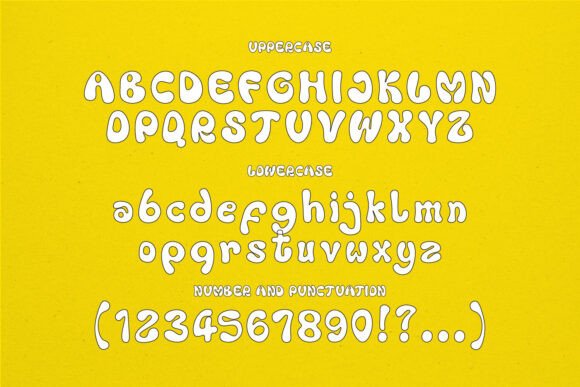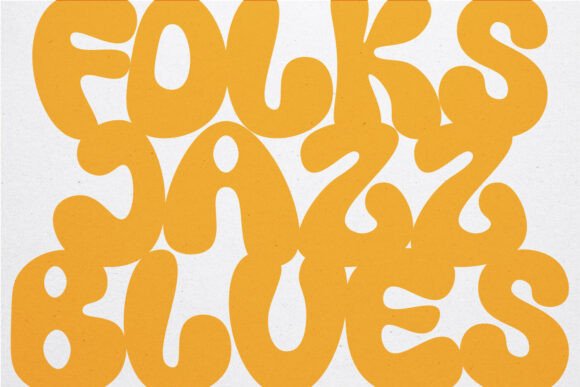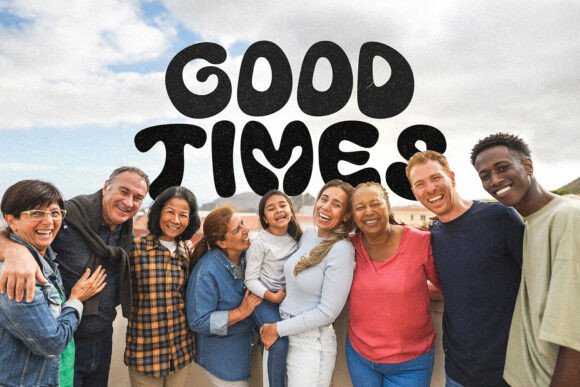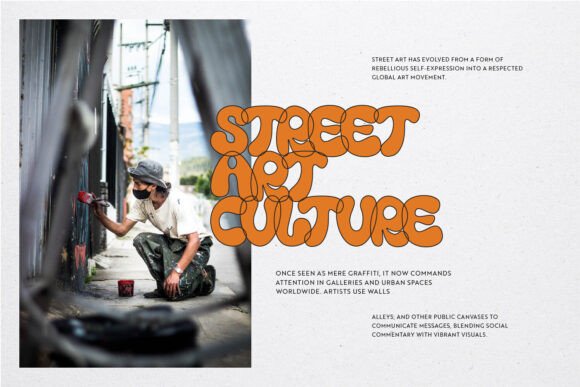
The Ultimate Font for Playful Designs: Bubbles Groove
I’ll never forget the time I was working on a fun project for a client who wanted a retro-inspired design. I had all the graphics and colors sorted, but I was stuck on finding the perfect font. That’s when I stumbled upon Bubbles Groove, a bold, rounded font that instantly brought my design to life! In this article, I’ll share my experience with Bubbles Groove, its features, and how to make the most of it in your designs.
An Honest Review of Bubbles Groove
- ✨ Bubbly Character: Bubbles Groove has a unique, playful vibe that’s perfect for designs that need a burst of energy and fun.
- ✅ Smooth, Curvy Shapes: The font’s smooth, curvy shapes make it easy to read and add a touch of personality to your designs.
- 🎉 Retro and Street Art-Inspired: Bubbles Groove is ideal for retro, Y2K, or street art-inspired designs, giving you a wide range of creative possibilities.
While Bubbles Groove is an amazing font, there are a few things to keep in mind:
- 🤔 Limited Formality: Due to its playful nature, Bubbles Groove might not be the best choice for formal or professional designs.
- ⚠️ Legibility at Small Sizes: Like many script fonts, Bubbles Groove can be tricky to read at very small sizes, so make sure to test it in your design.
The Story Behind Bubbles Groove
Bubbles Groove was designed with the goal of creating a font that’s both fun and functional. The designer wanted to capture the playful spirit of the ’90s and early 2000s, while still making it suitable for modern designs. The result is a font that’s perfect for adding a burst of energy and personality to your designs.
Q: What type of designs is Bubbles Groove best suited for?
A: Bubbles Groove is ideal for designs that need a playful, energetic vibe, such as retro-inspired designs, street art, and fun projects.
Q: Is Bubbles Groove available in different weights or styles?
A: Bubbles Groove comes in a single weight, but its smooth, curvy shapes make it versatile enough for various design applications.